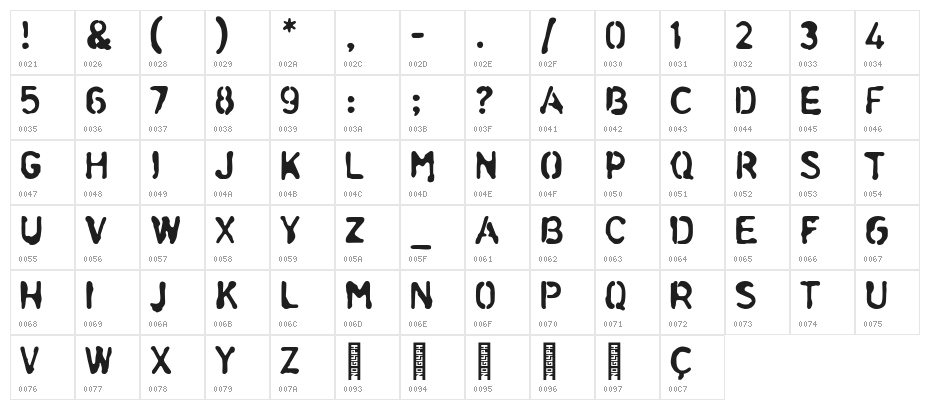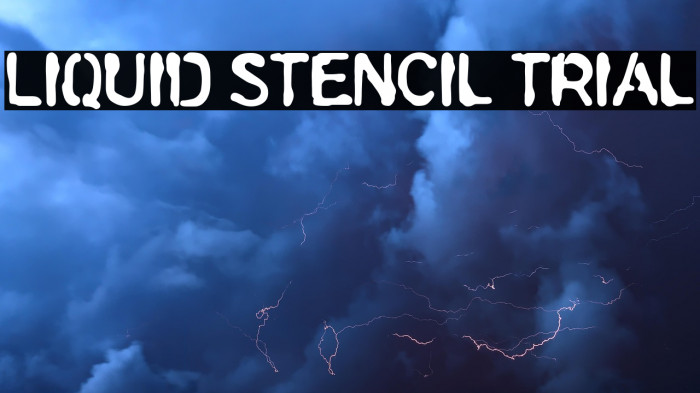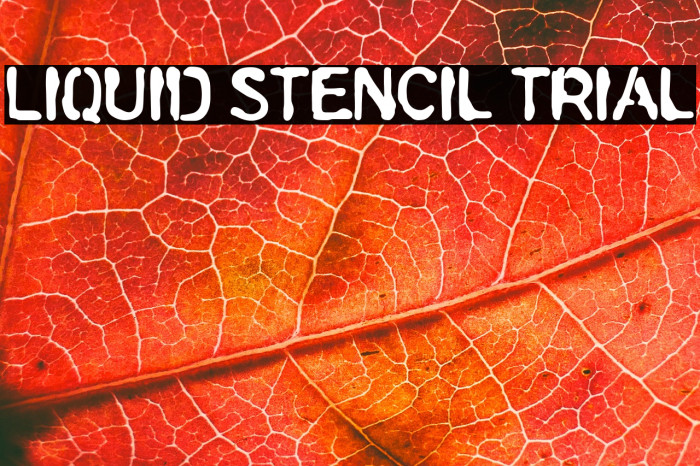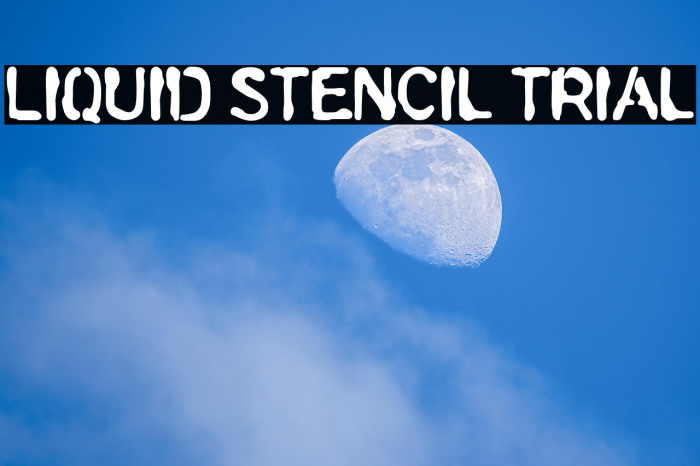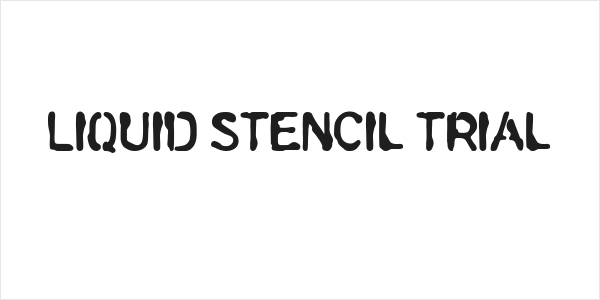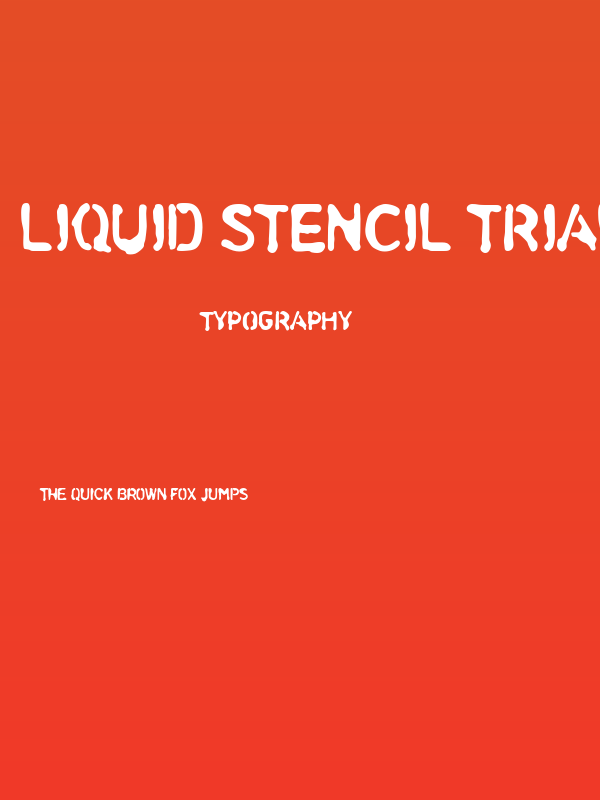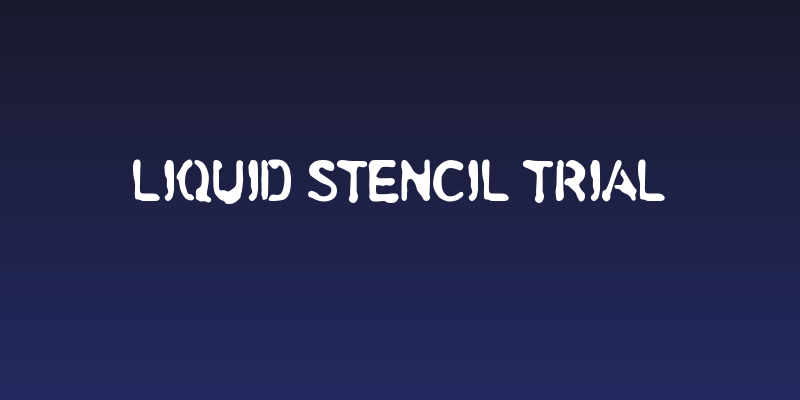
Liquid Stencil trial Font
Liquid Stencil trial Description
This font features a bold, stencil-like design with a liquid appearance, characterized by thick, rounded edges and irregular shapes that mimic the flow of liquid. The uppercase and lowercase letters maintain a consistent style, with each character appearing as though it has been cut out from a solid surface, leaving behind a bold outline. The numbers and special characters follow the same aesthetic, providing a cohesive look across all elements. This font's unique style makes it stand out, offering a playful yet edgy feel that can be used to draw attention.